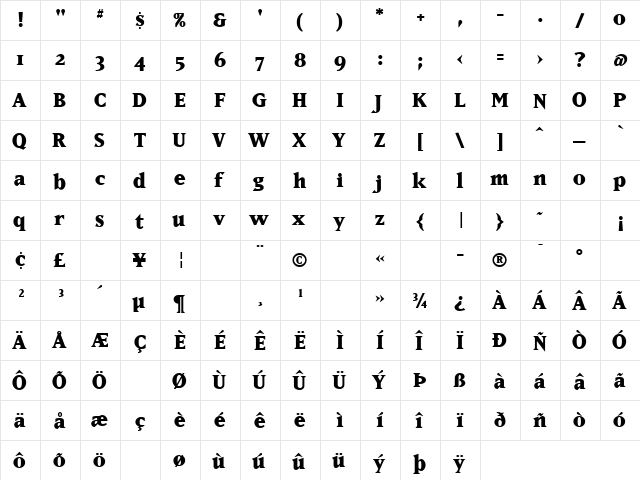
MatrixExtraBoldOldstyle Bold
Design Context for MatrixExtraBoldOldstyle Typeface
MatrixExtraBoldOldstyle brings classic typographic sensibility to the table — its serifs and measured letterforms reflect centuries of print heritage. Its bold stroke weight gives it real presence on the page.
Pro Tip: Set MatrixExtraBoldOldstyle with slightly loose tracking in headlines to let each letterform's detail read clearly at display sizes.